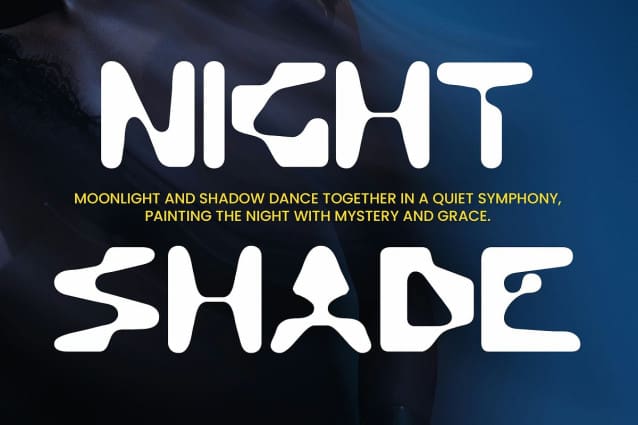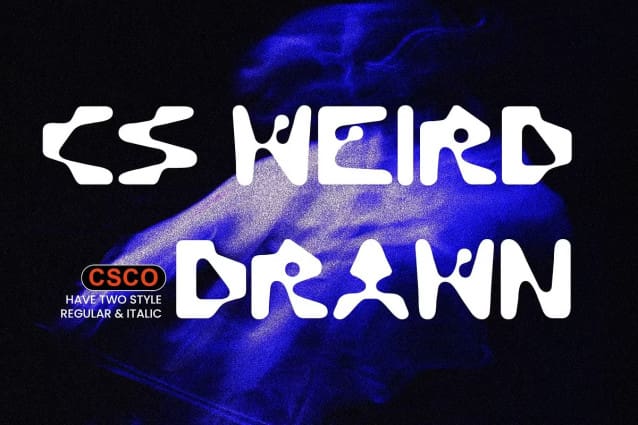
CS Weird Drawn Font
CS Weird Drawn Font is a display font that pushes the boundaries of conventional design with its quirky and abstract decorative shapes. The font’s unusual, striking forms create an eye-catching, out-of-the-box visual presence, perfect for projects that aim to stand out with a bold and unconventional style. Its funky design embodies creativity and freedom of expression, making it an ideal choice for those seeking a font that conveys individuality and flair.
Enhanced with a Bold Hand-Drawn Effect The applied drawn effect enhances the font’s already distinctive appearance, adding a prominent artistic touch that brings each letter to life with a dynamic and hand-crafted quality. This gives the font an organic, free-flowing energy that infuses every design with character and uniqueness.
Perfect for Experimental and Creative Projects This drawn font is designed for projects that embrace experimentation and want to showcase originality. Whether it’s music posters, album covers, or experimental graphics, this font provides the perfect blend of creative freedom and strong visual impact. It’s ideal for any project that requires a bold, funky design that stands out from the crowd and captures attention.